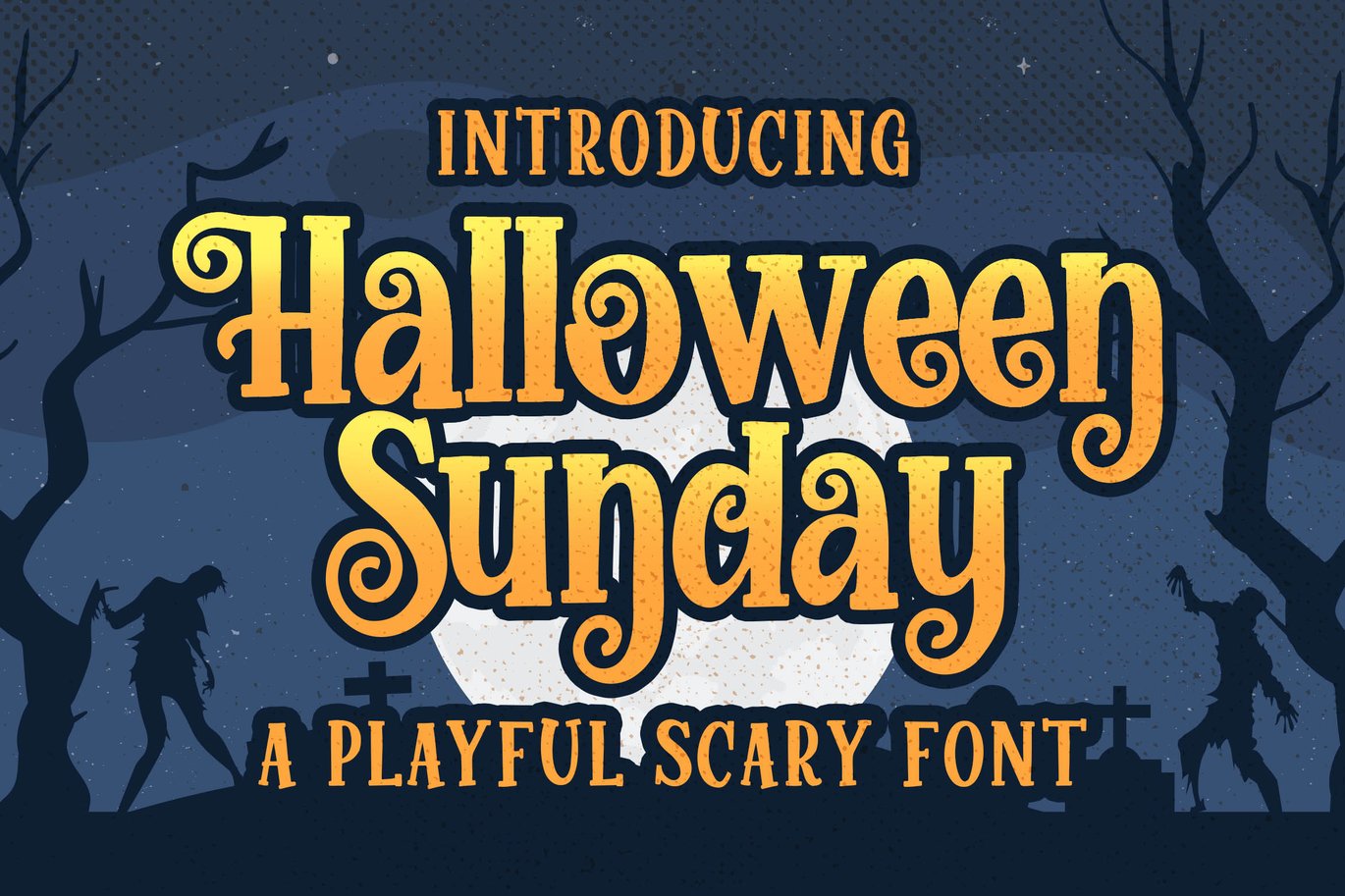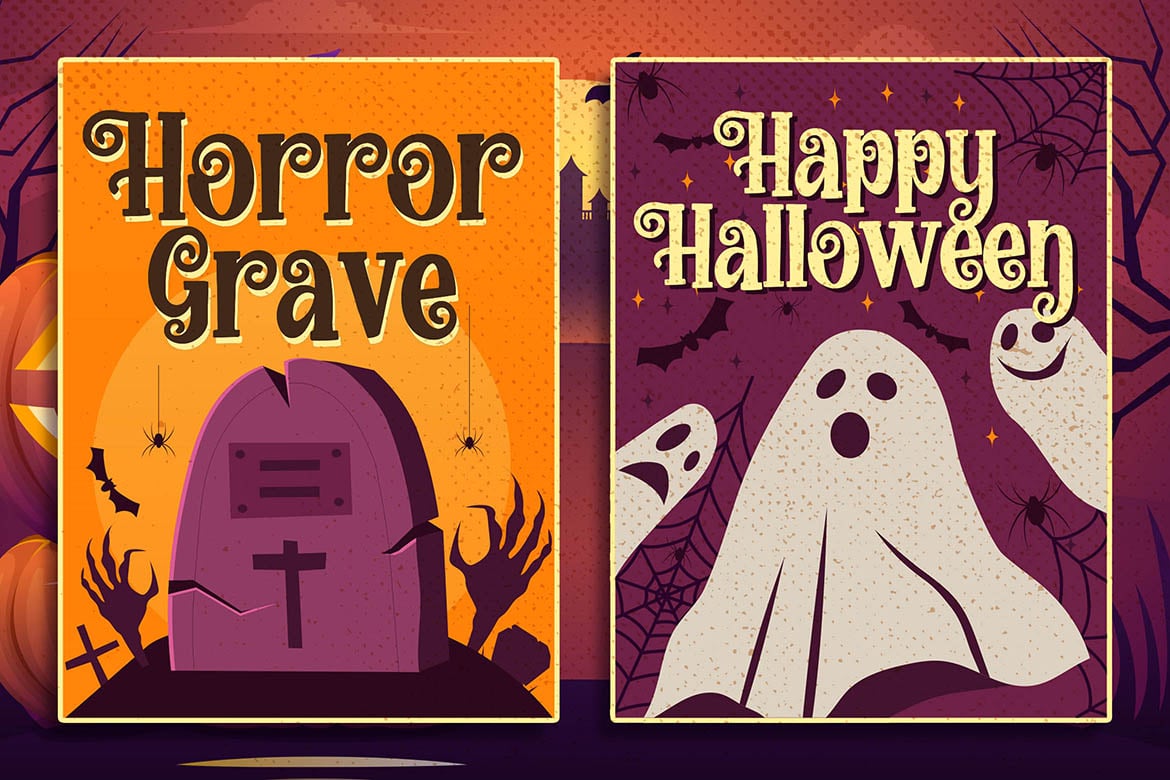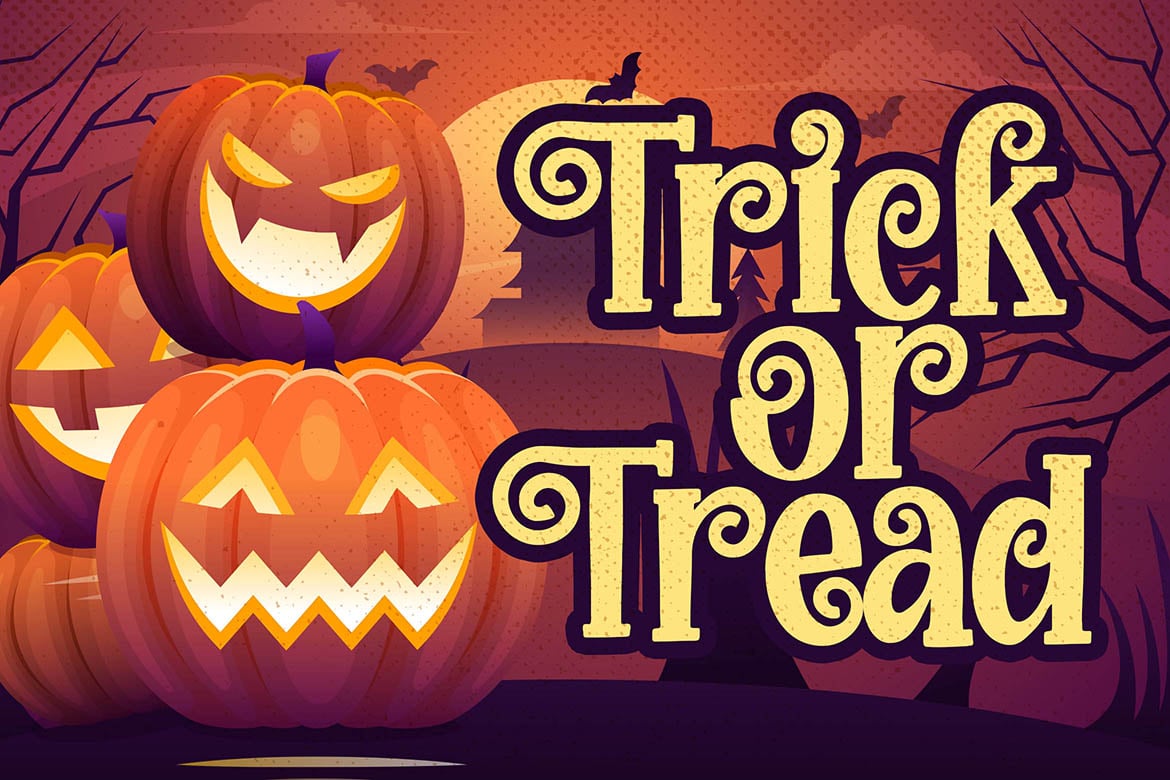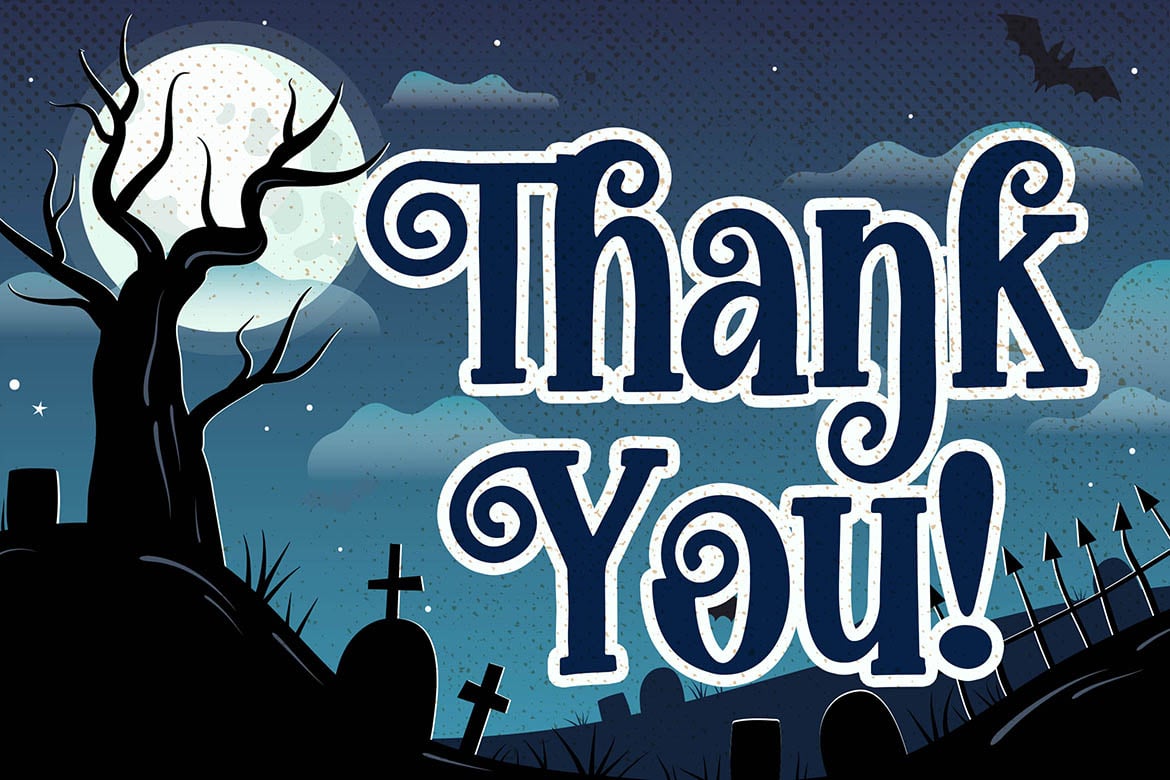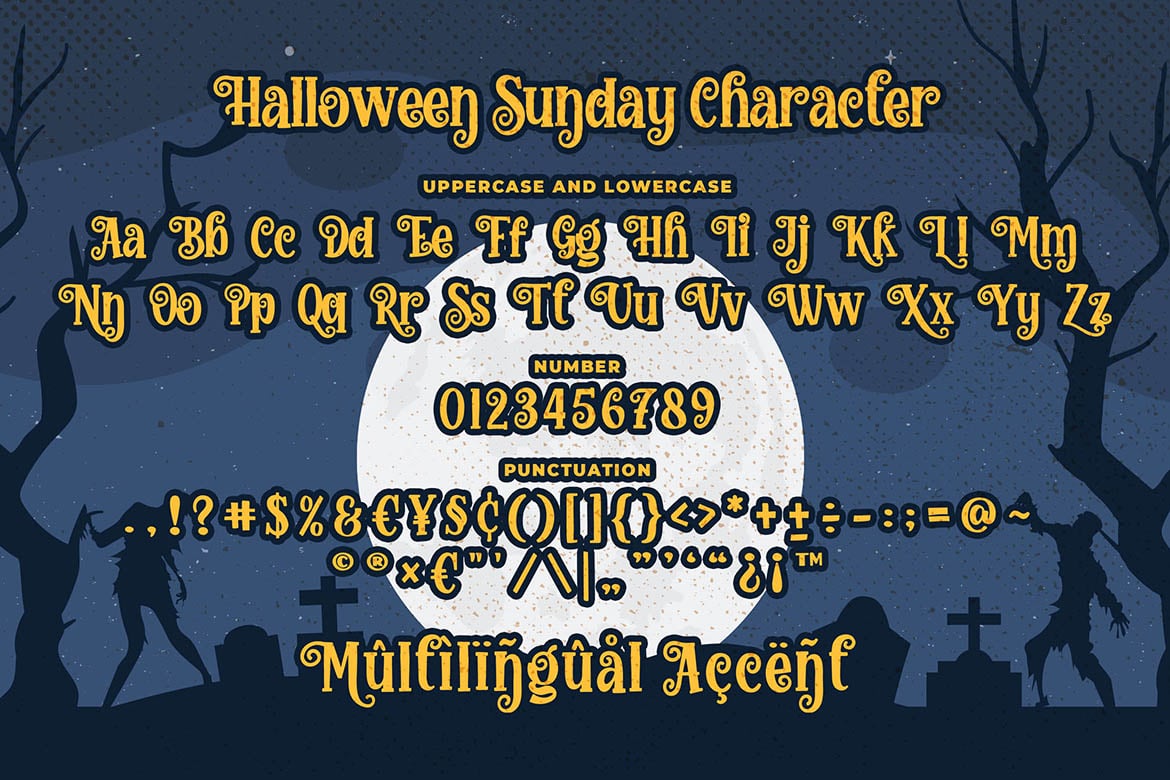
Halloween Sunday – a Playful Scary font
Introducing of our new product the name is Halloween Sunday a Playful Scary font, Halloween Sunday inspired by Bouncy horror style with a fun theme very good for horror, scary, spooky and halloween theme design.